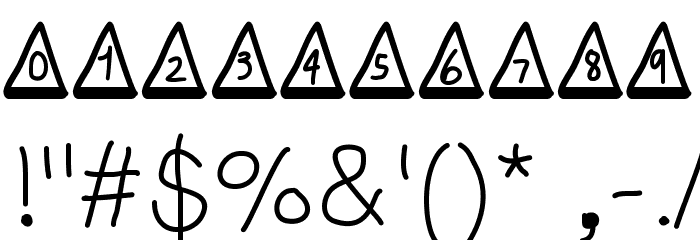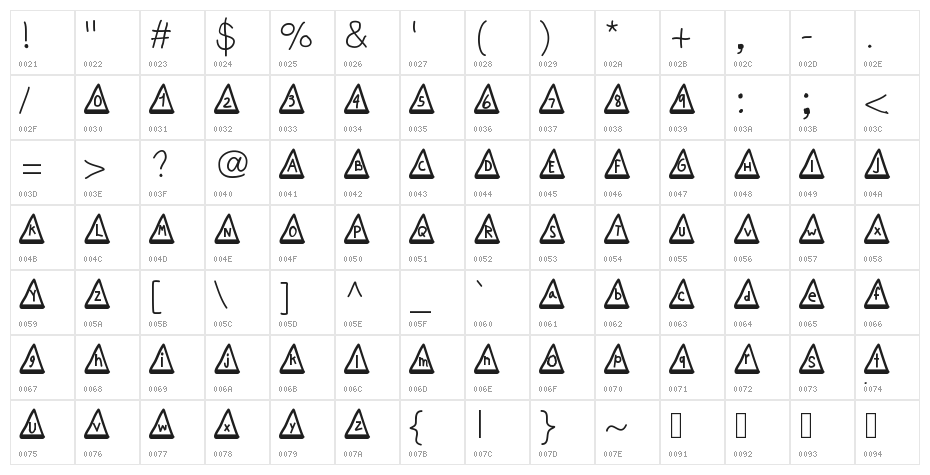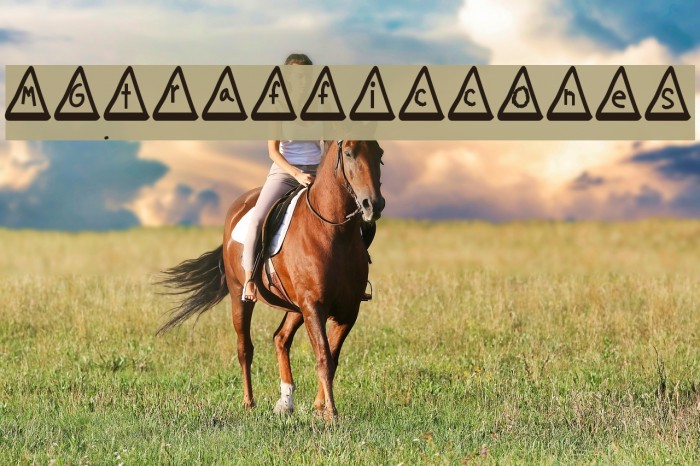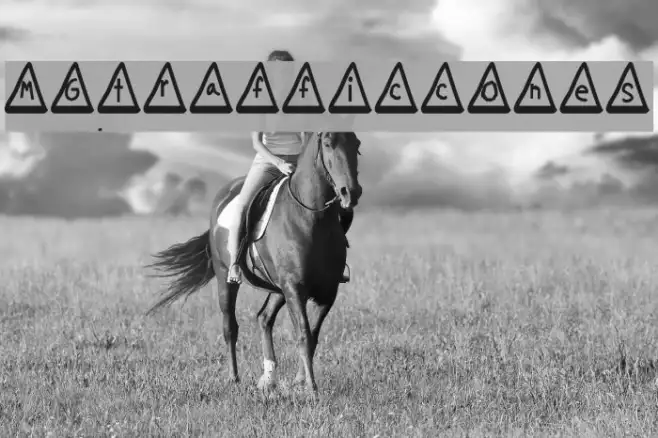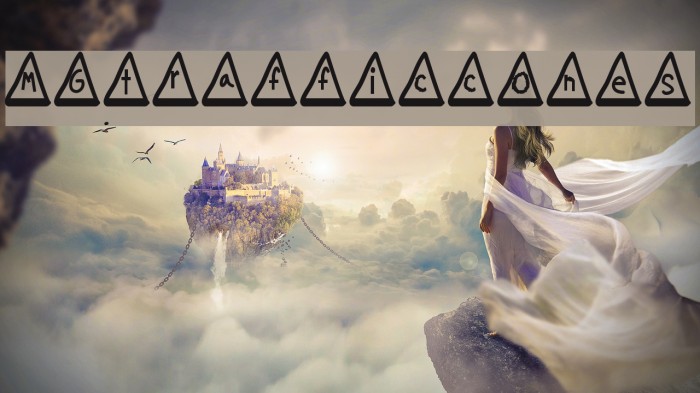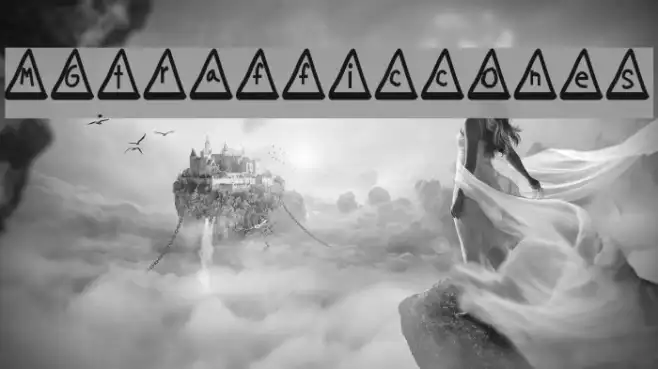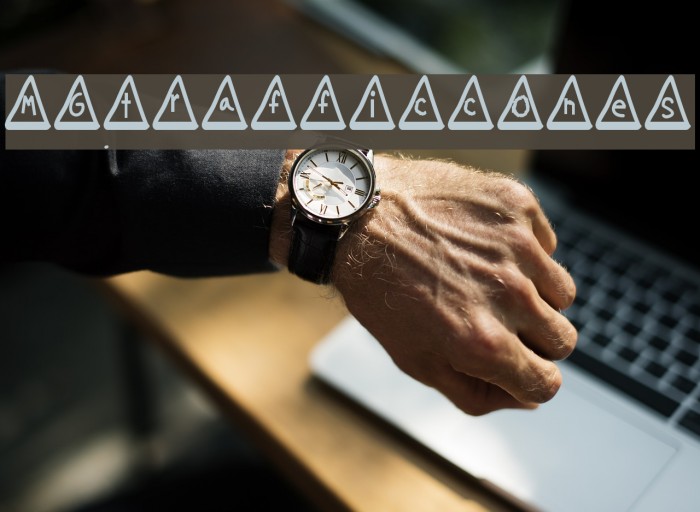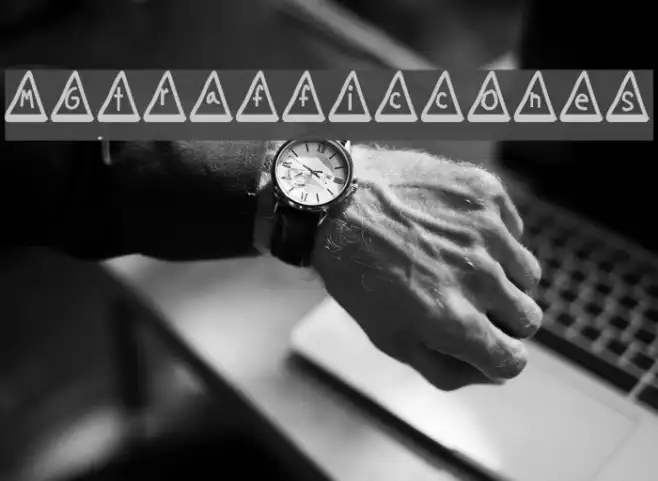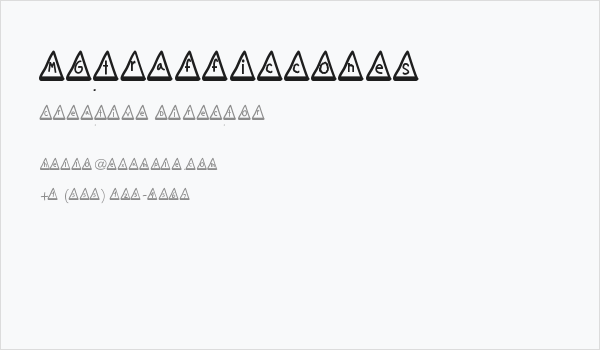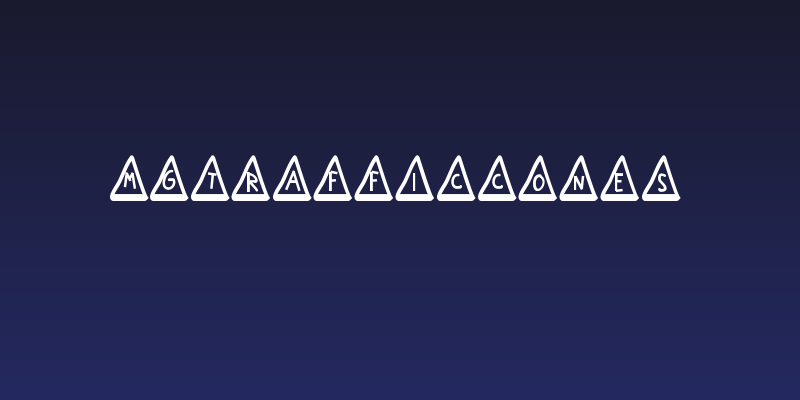
MGtrafficcones Font
MGtrafficcones Description
This unique font features characters enclosed within triangular shapes, creating a distinct and eye-catching appearance. Each letter and number is centered within a bold, black triangle, giving the font a geometric and modern look. The uppercase and lowercase letters are consistent in style, maintaining the triangular enclosure. The numbers follow the same design, ensuring uniformity across all characters. Special characters are presented in a more traditional style, without the triangular enclosure, providing a contrast to the letters and numbers. This font's design is both playful and structured, making it suitable for creative projects that require a bold statement.